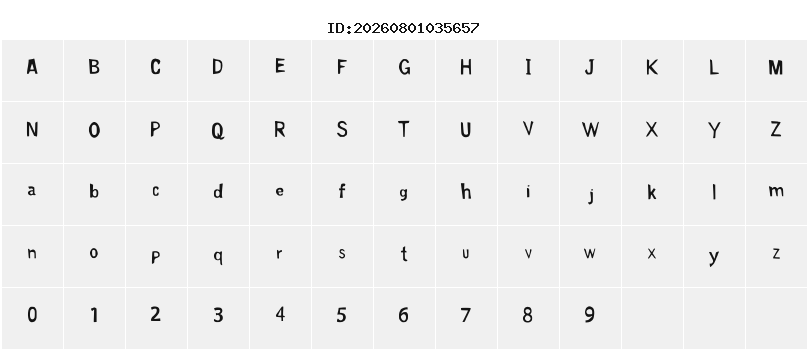
About Lacandazo_DMA4.ttf
Lacandazo_DMA4.ttf is a modern, elegant sans-serif font designed for ultimate readability and visual harmony. Perfect for branding, headlines, web design, and print materials.